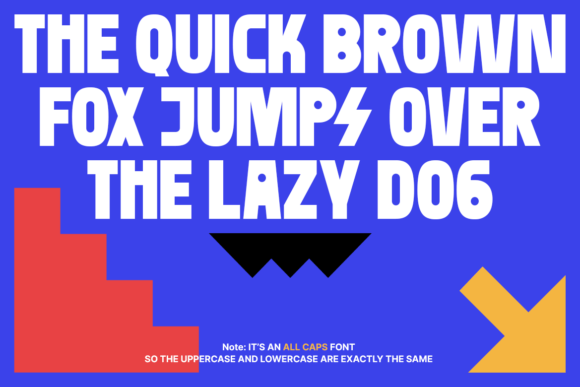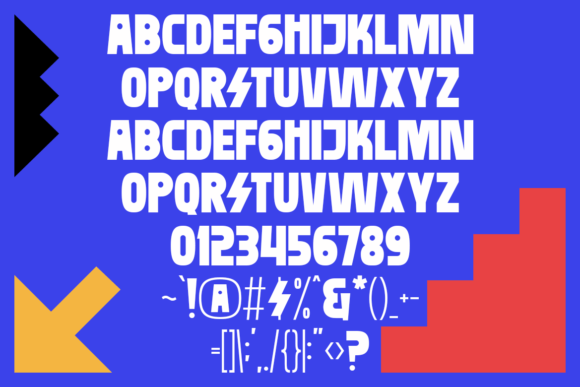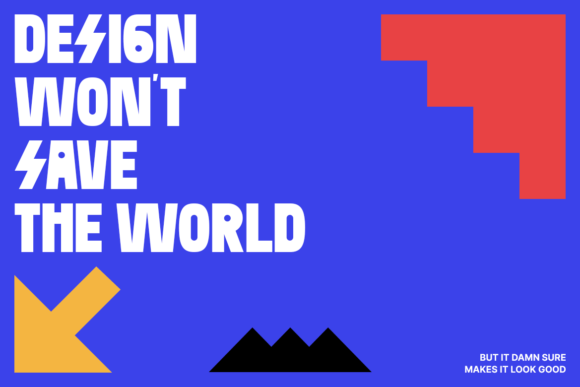
Introduction to Fastove Font
Meet Fastove, the bold pop geometric font that’s ready to transform your designs.
Drawing inspiration from classic retro posters and the playful charm of pop culture, Fastove brings a unique, blocky square aesthetic that’s perfect for any project Whether you’re designing a poster, creating digital artwork, or branding a new product, Fastove’s vibrant energy and striking design will make your work unforgettable.
Key Features of Fastove Font
Why Choose Fastove Font?